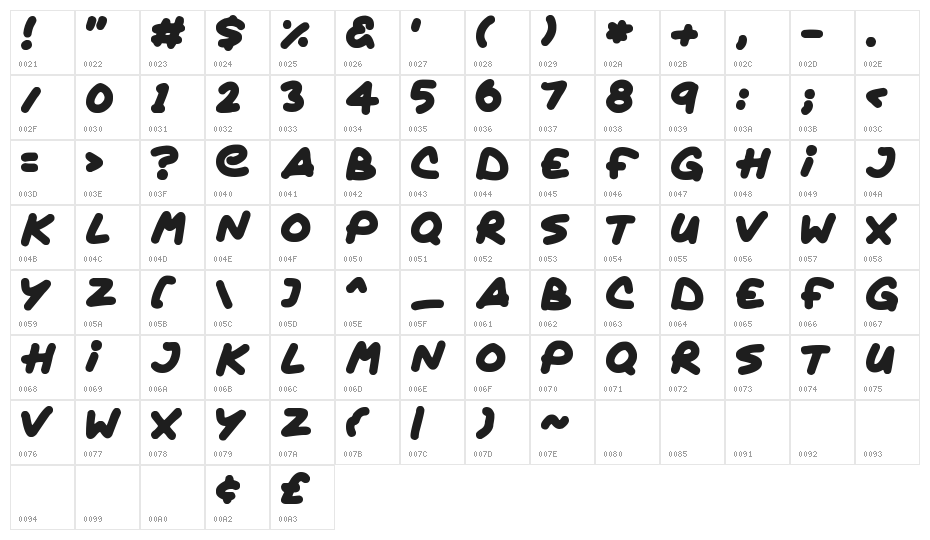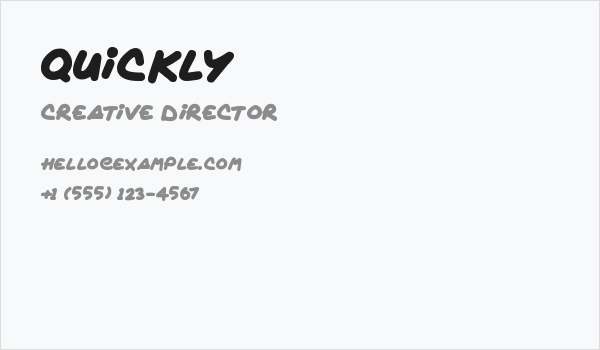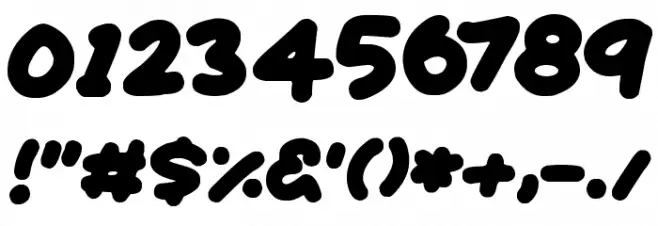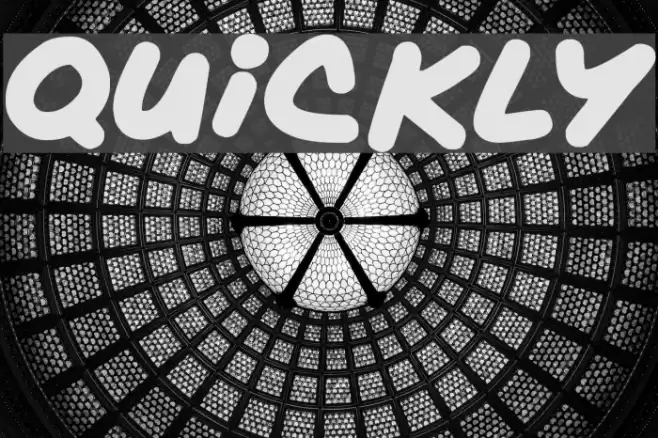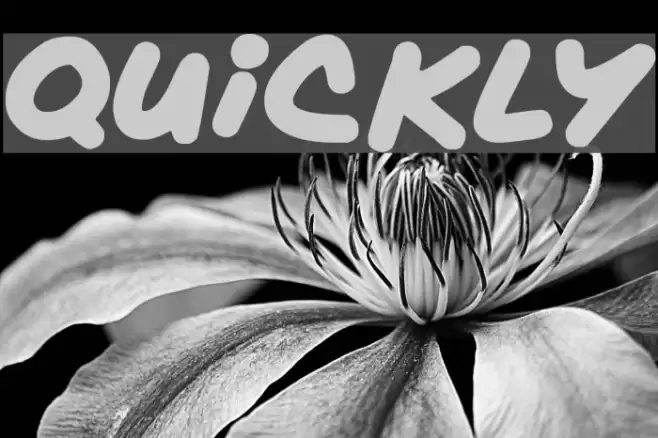
Quickly Font
Quickly Description
This font features a playful and bold style with rounded edges and a handwritten appearance. The characters are thick and have a consistent weight throughout, giving them a strong presence on the page. The letters are slightly slanted, adding a dynamic and casual feel. The spacing between characters is tight, which enhances the cohesive look of the text. This font is highly readable and maintains clarity even at smaller sizes. The numbers and special characters are designed to match the playful and bold aesthetic of the alphabet, ensuring a uniform look across all text elements.
| Overall Style | Playful |
| Use Case | Logos, Headlines, Posters |
| Proposed Projects | Ideal for children's books, playful branding, casual invitations, and creative posters. |